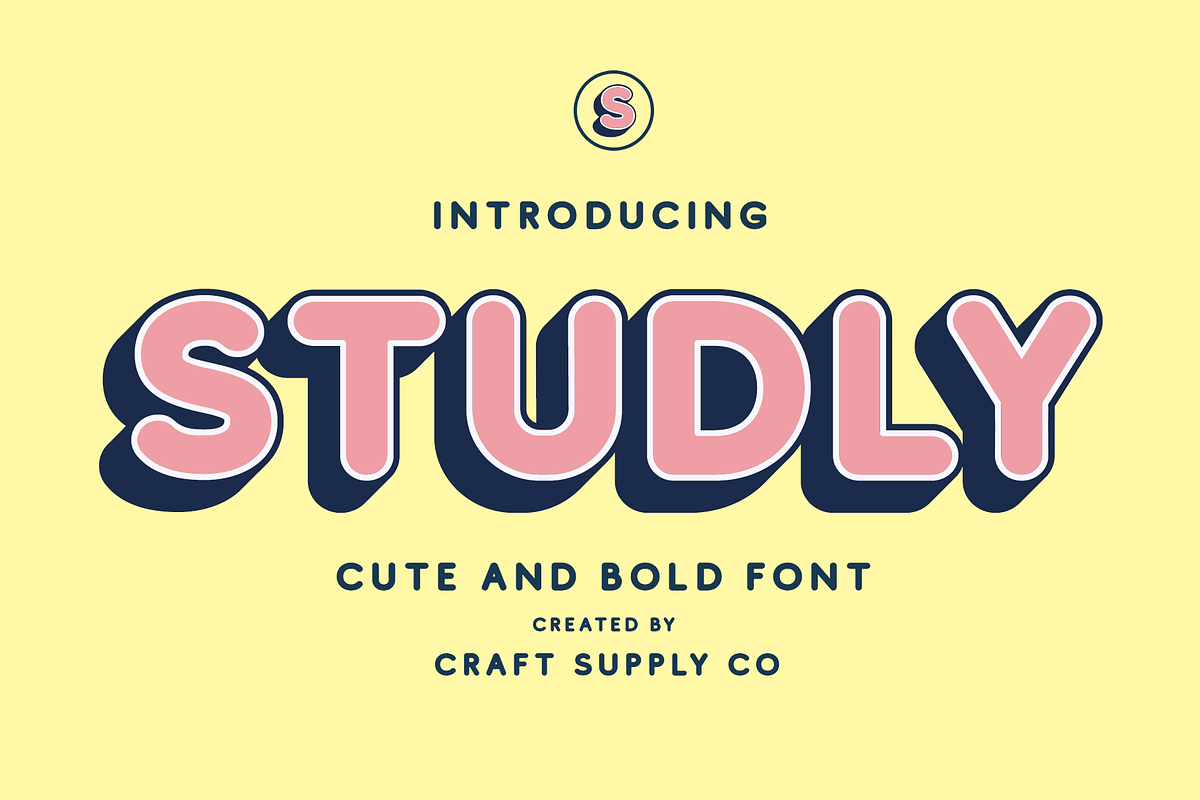
Studly – Layered Font Family Free Download is a bold, playful typeface designed with multiple layers to create depth, dimension, and eye-catching effects. Perfect for posters, logos, merchandise, and retro-themed projects, Studly brings a fun, dynamic vibe to your typography. Please note that you must purchase this font for commercial use, but it is available as a free download for testing purposes. Whether you're going for vintage flair or modern pop, Studly – Layered Font Family Free Download offers creative flexibility and standout style for any design.